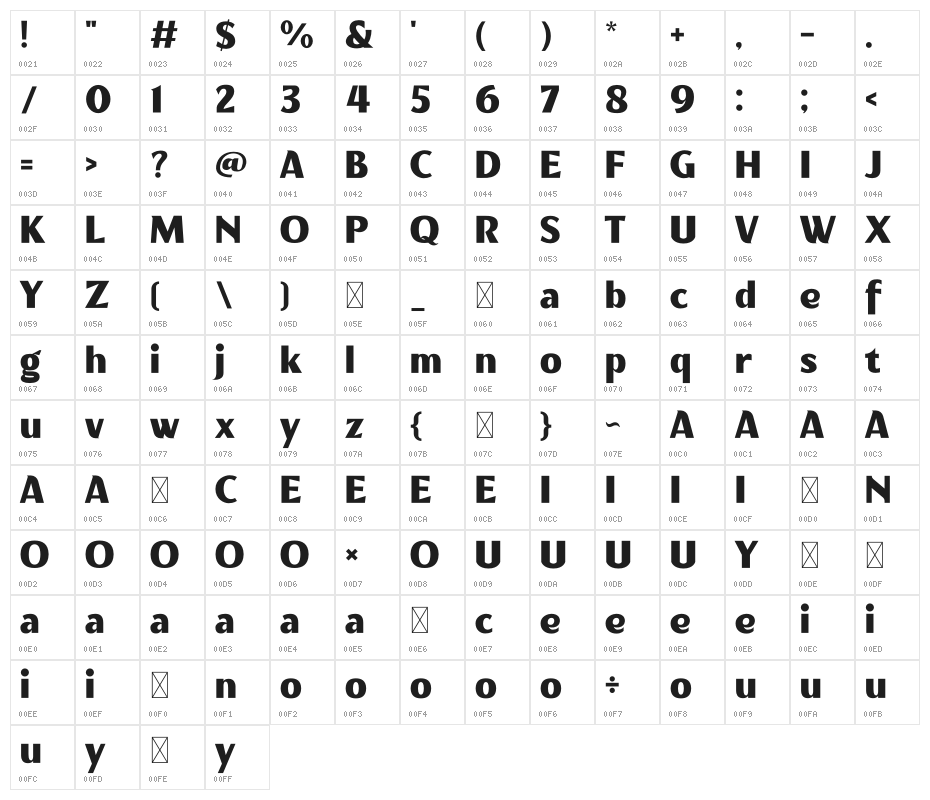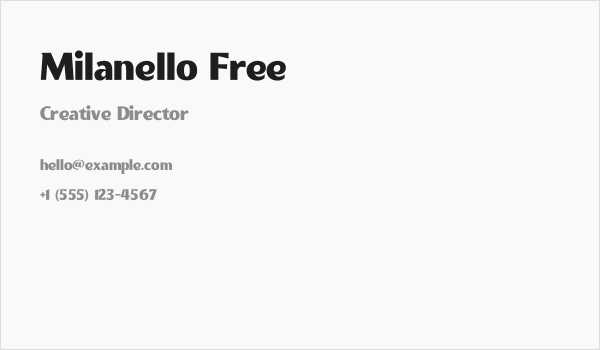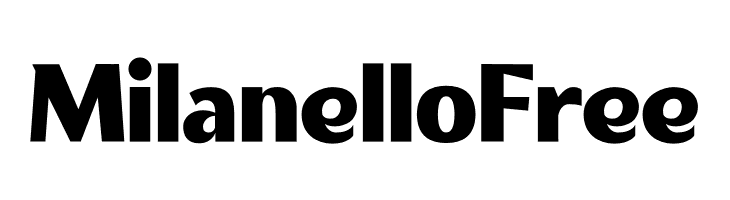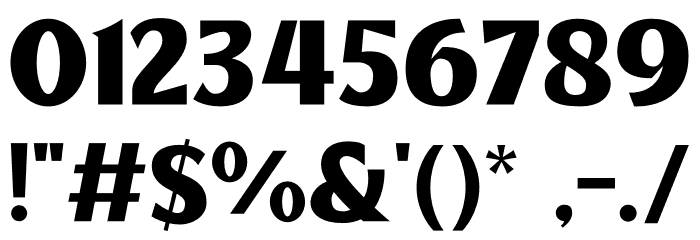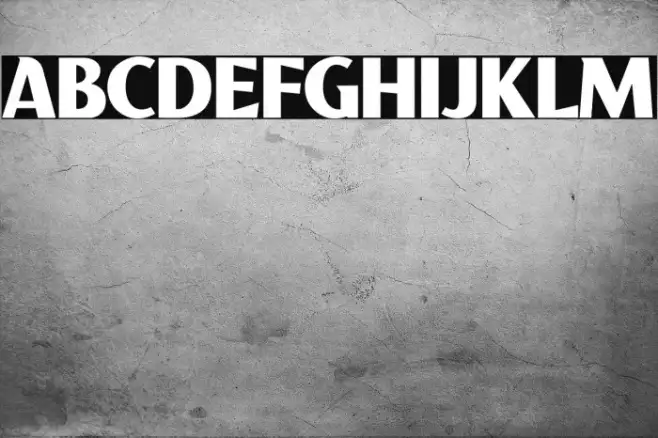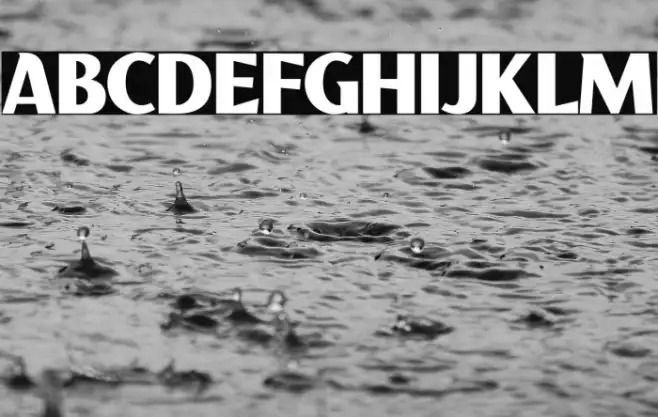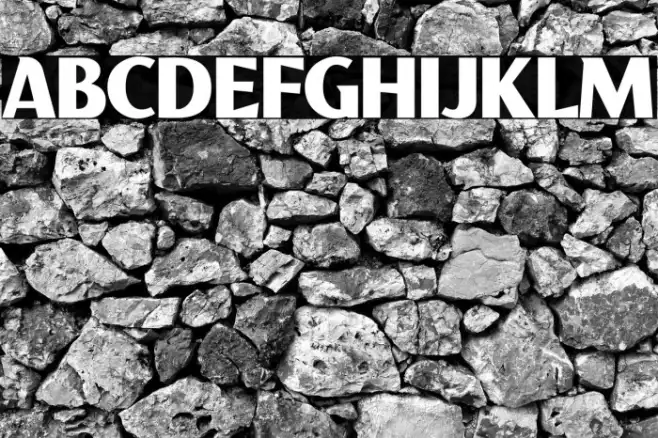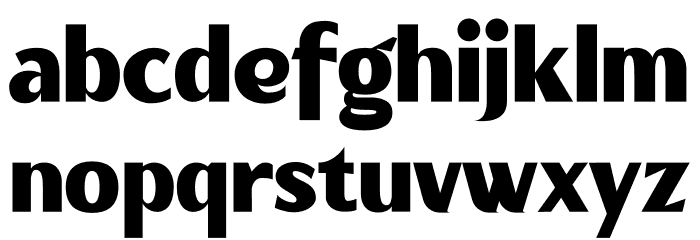
Milanello Free Font
Milanello Free Description
A bold, modern sans-serif font with a strong presence and slightly condensed letterforms.
| Proposed Projects | Branding, headlines, posters. |